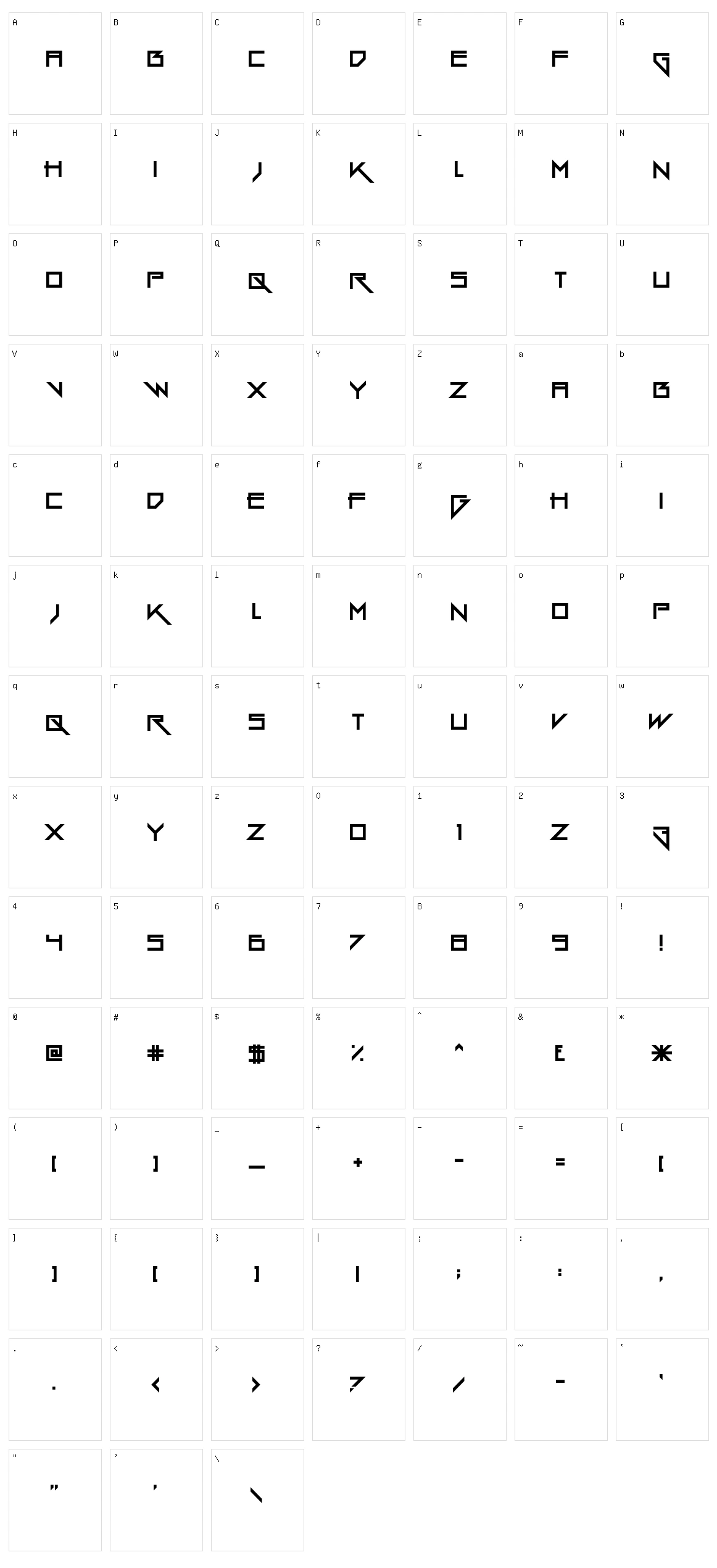
The free font Gang Wolfik is carefully designed by Chequered Ink, showcasing a thoughtful balance of creativity and usability and belongs to the Gothic font family. When you download the ZIP file, it contains only 4.06 KB of font files, making it lightweight and quick to download. Please review the license details below to understand permitted usage and distribution rights. If license information is not available, we recommend using this font for personal projects only or contacting the author directly for commercial usage permissions.